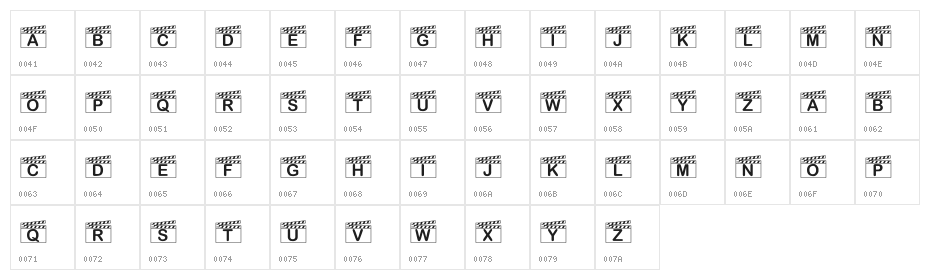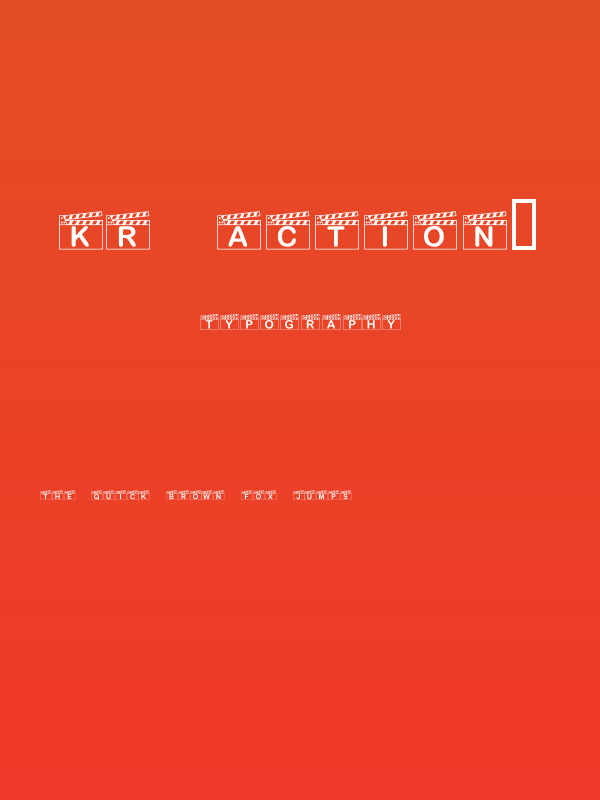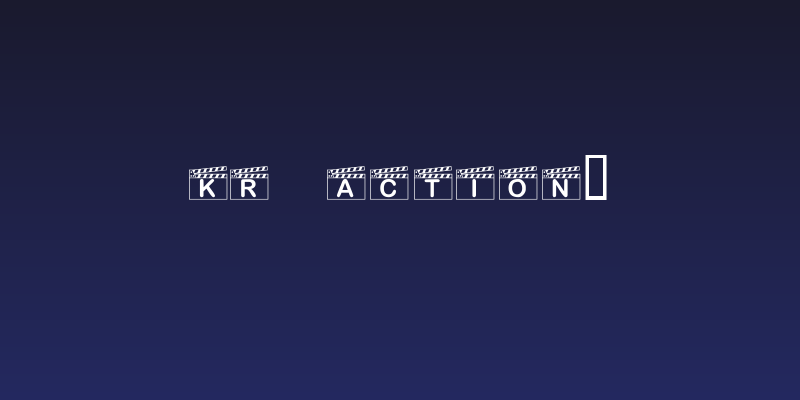
KR Action! Font
KR Action! Description
This font is a playful and thematic design that incorporates elements of a film clapperboard into each character. Each letter is encased in a box with a clapperboard top, giving it a cinematic and creative appearance. The characters are bold and clear, making them easily readable despite the decorative elements. This font is ideal for projects that require a fun, movie-themed aesthetic, such as film posters, event invitations, or themed party decorations. The unique design captures attention and adds a touch of entertainment industry flair to any text.
| Proposed Projects | Ideal for film posters, event invitations, themed party decorations, and entertainment industry branding. |